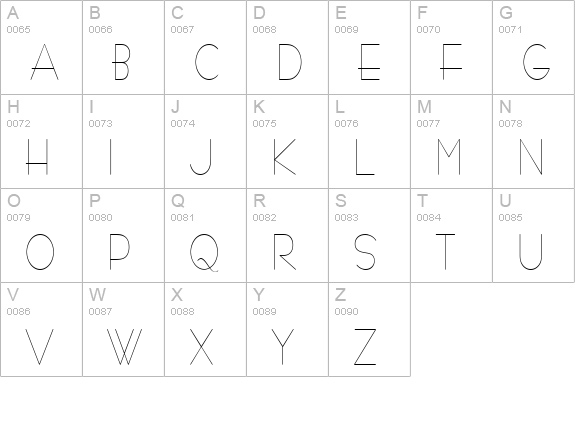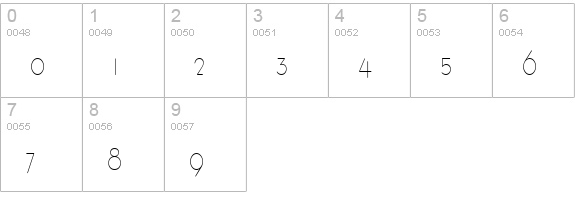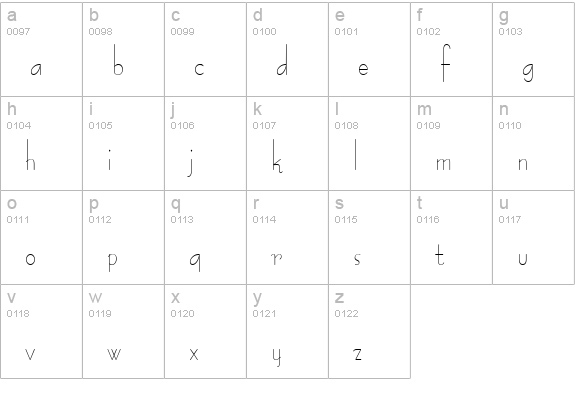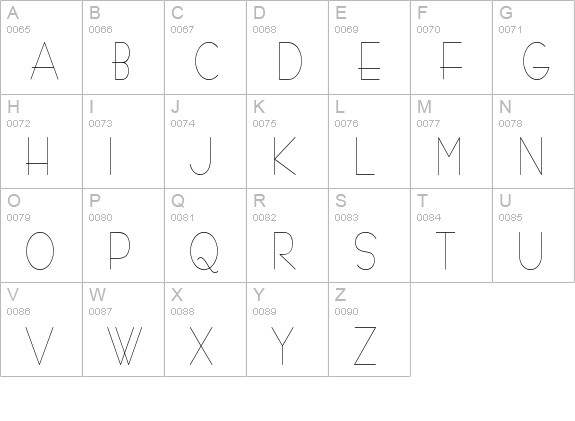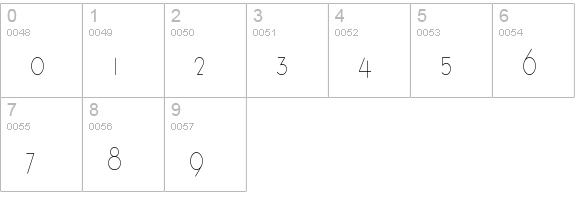
Bernie Condensed Normal is the standard, neutral, condensed-width variant in the Bernie typeface family \xE2\x80\x94 well suited to general body text, paragraphs, and standard typographic work.
Bernie Condensed Normal font is a versatile and modern typeface that exudes elegance and sophistication. Its clean lines and slightly condensed form make it perfect for a wide range of design projects, from advertising to branding to editorial design. The font strikes a perfect balance between professionalism and creativity, making it a go-to choice for designers looking to make a statement. Best of all, Bernie Condensed Normal font is available for free download at FontsMarket.com. This means you can easily access this high-quality font without breaking the bank. Whether you're a seasoned designer or just starting out, Bernie Condensed Normal font is a valuable addition to your font library. Download it today and elevate your designs with its timeless appeal.